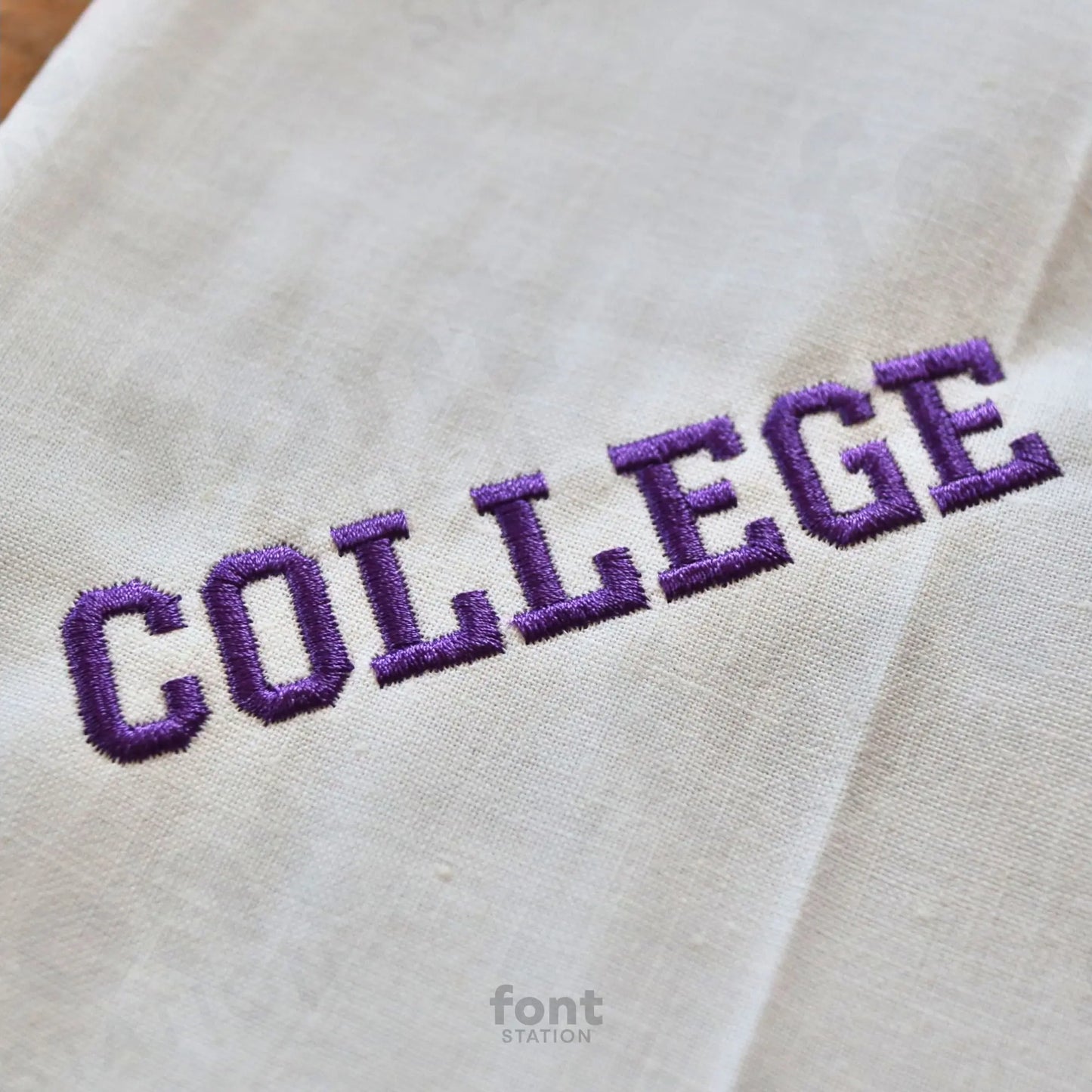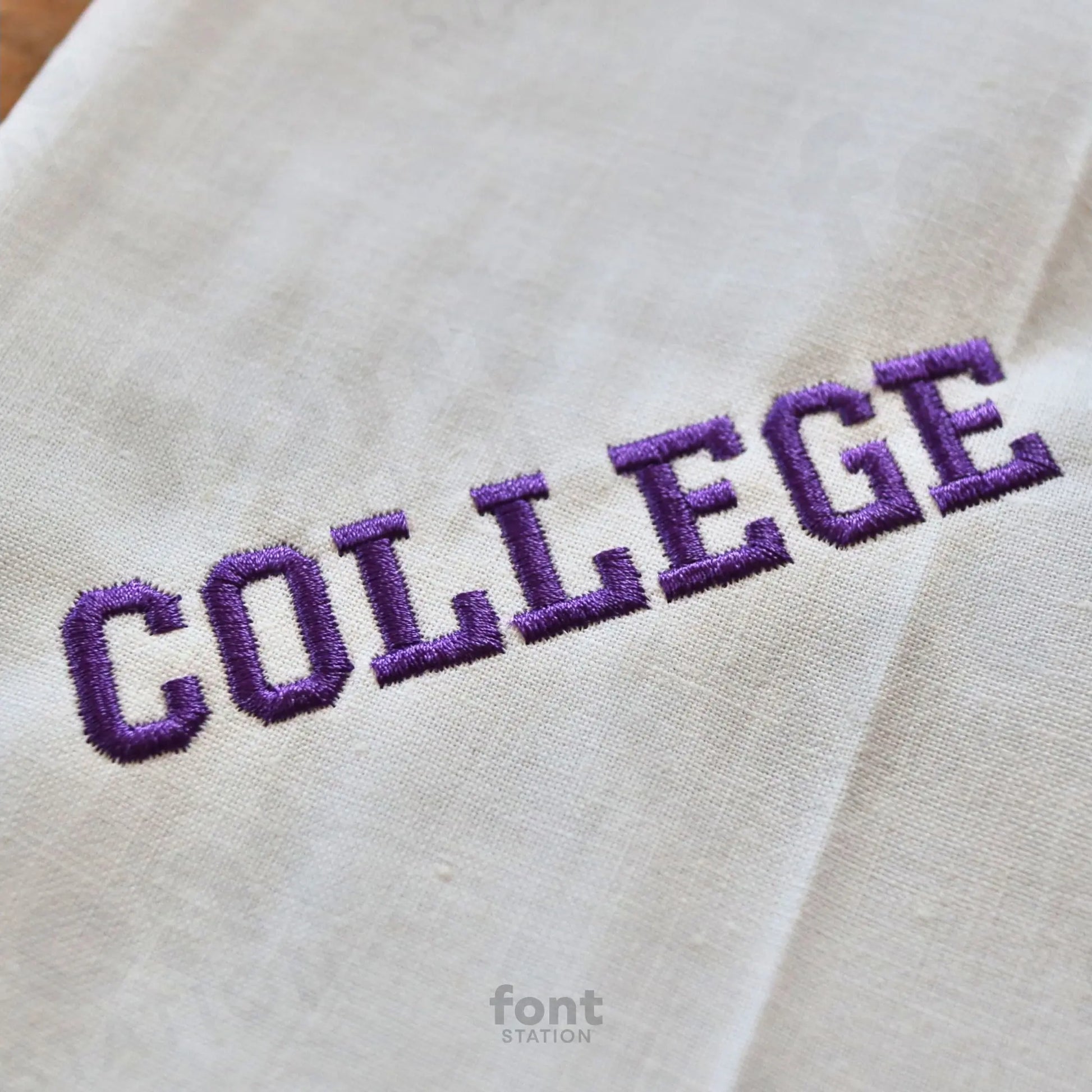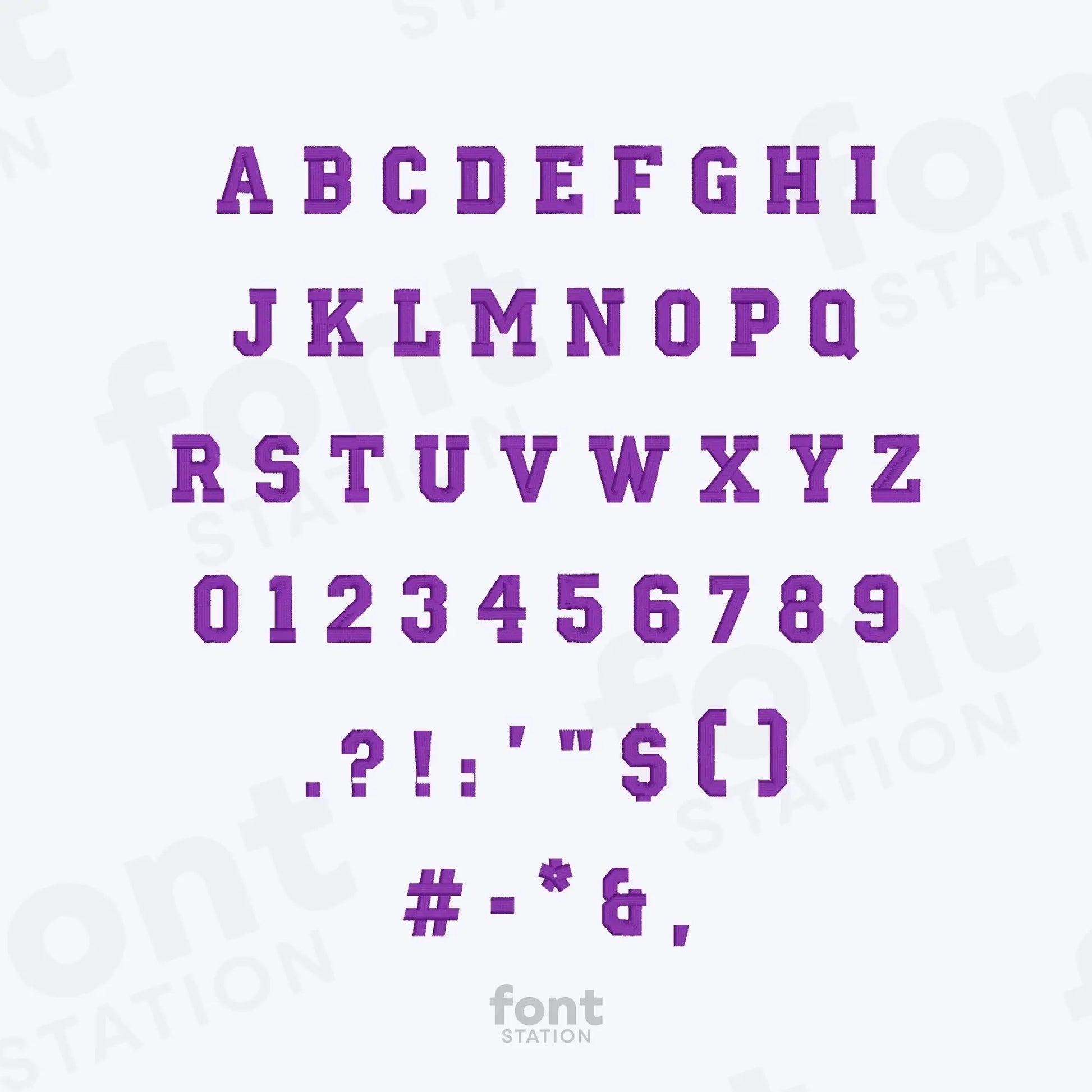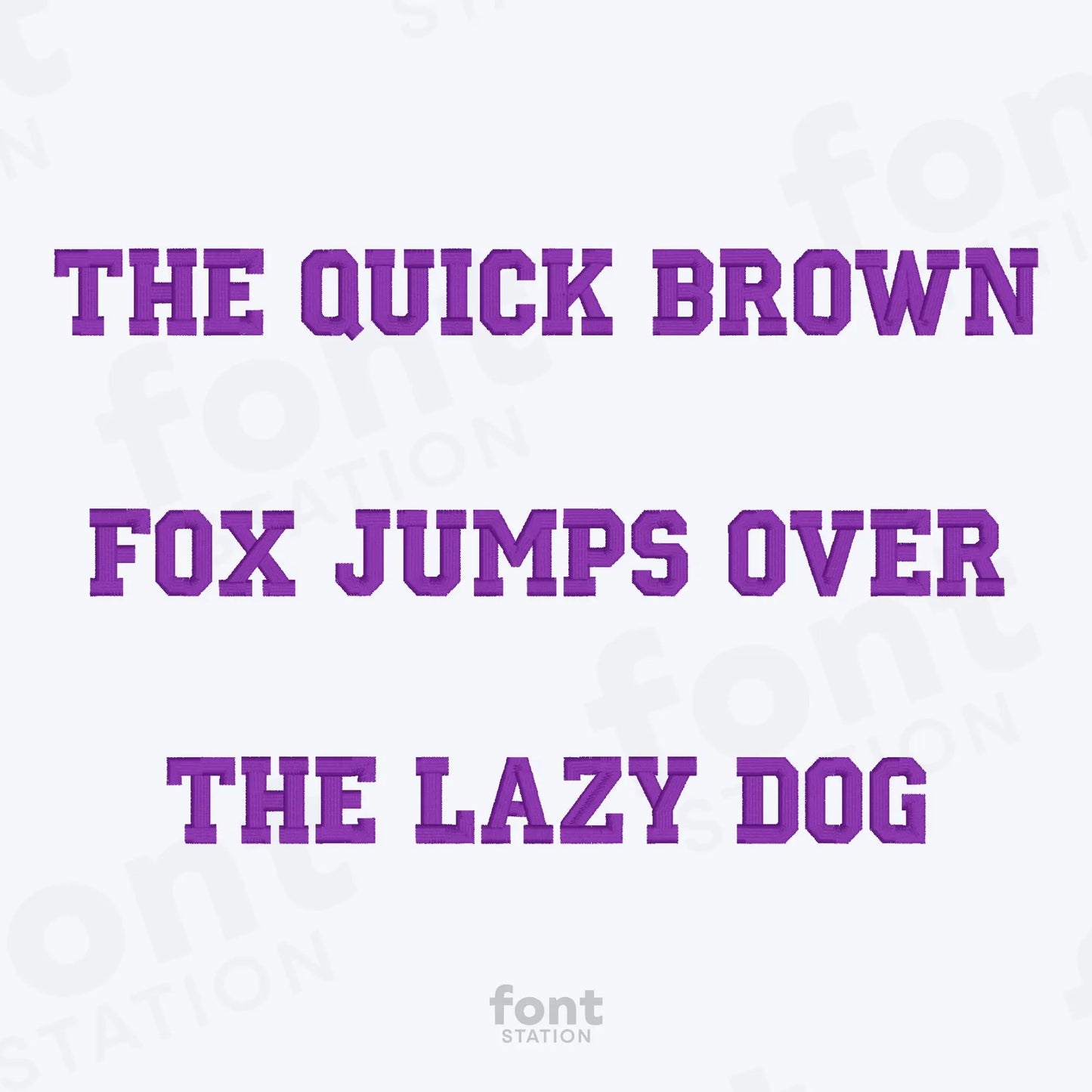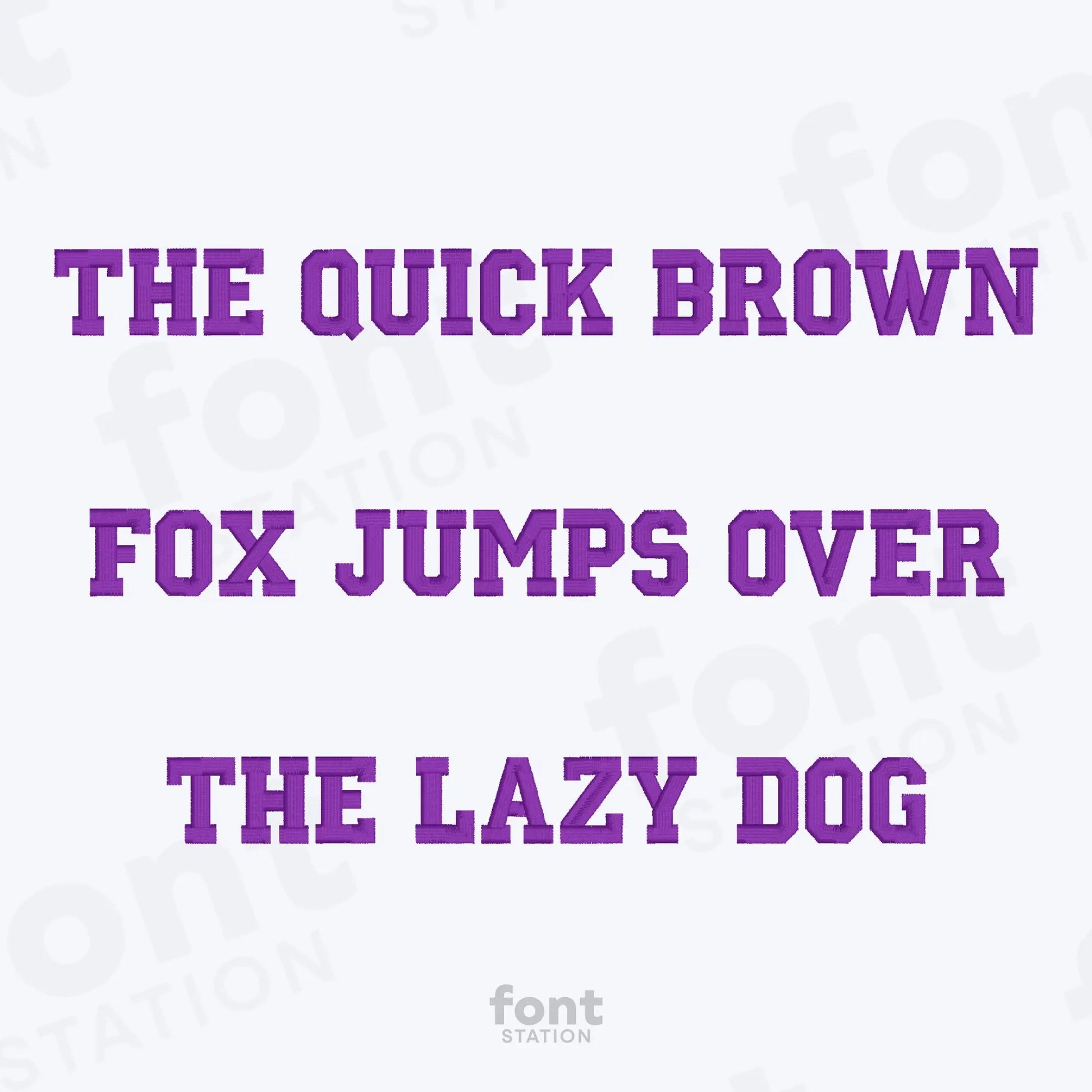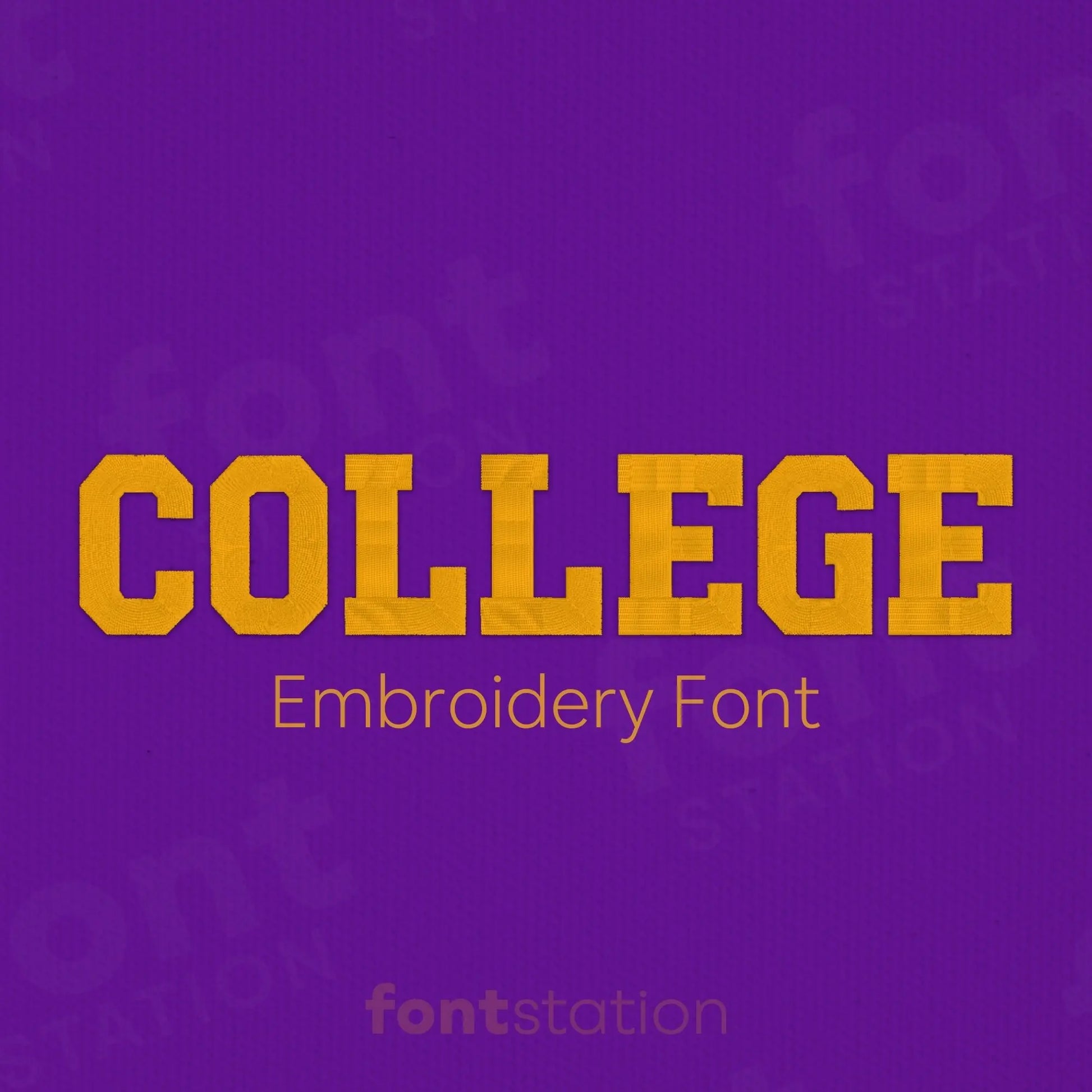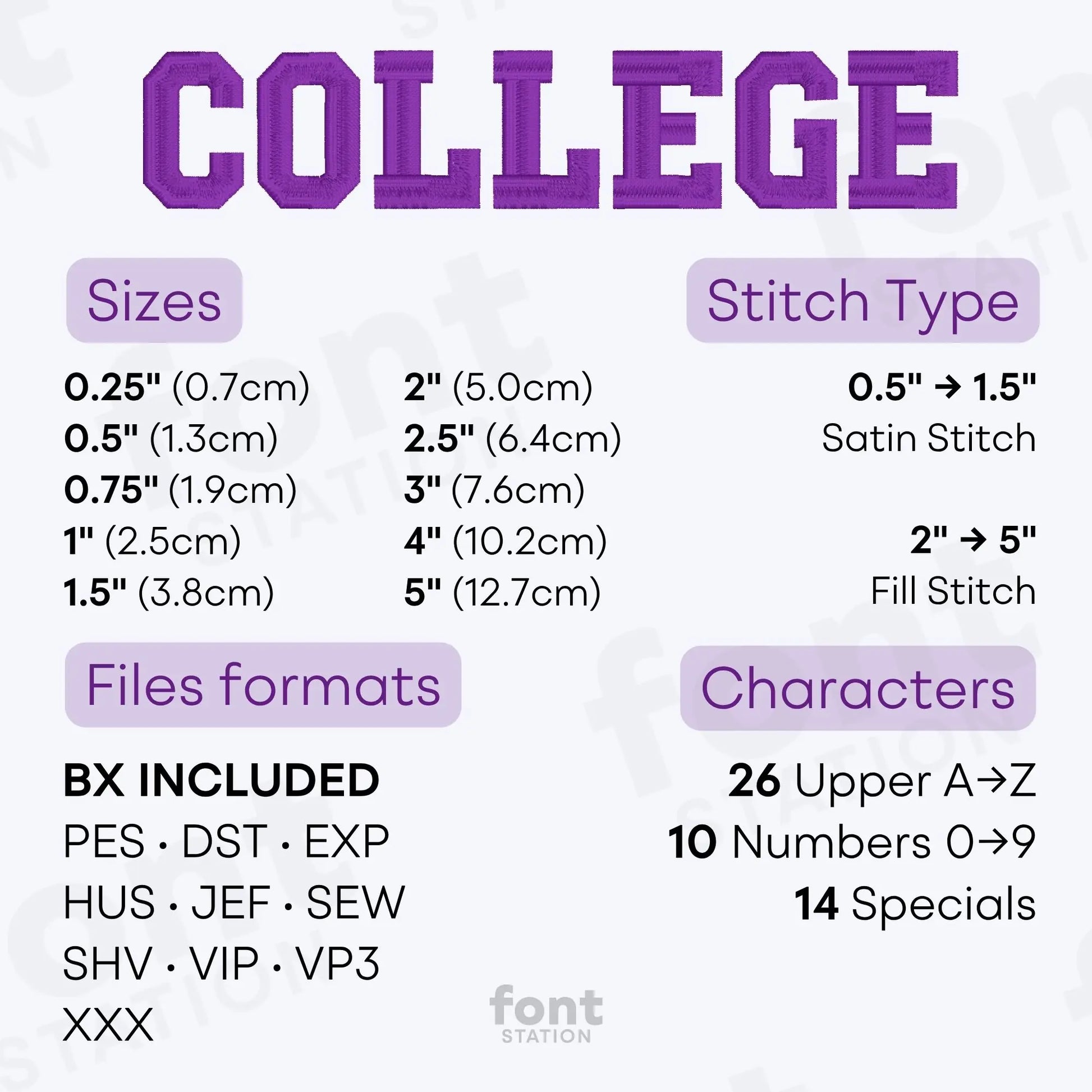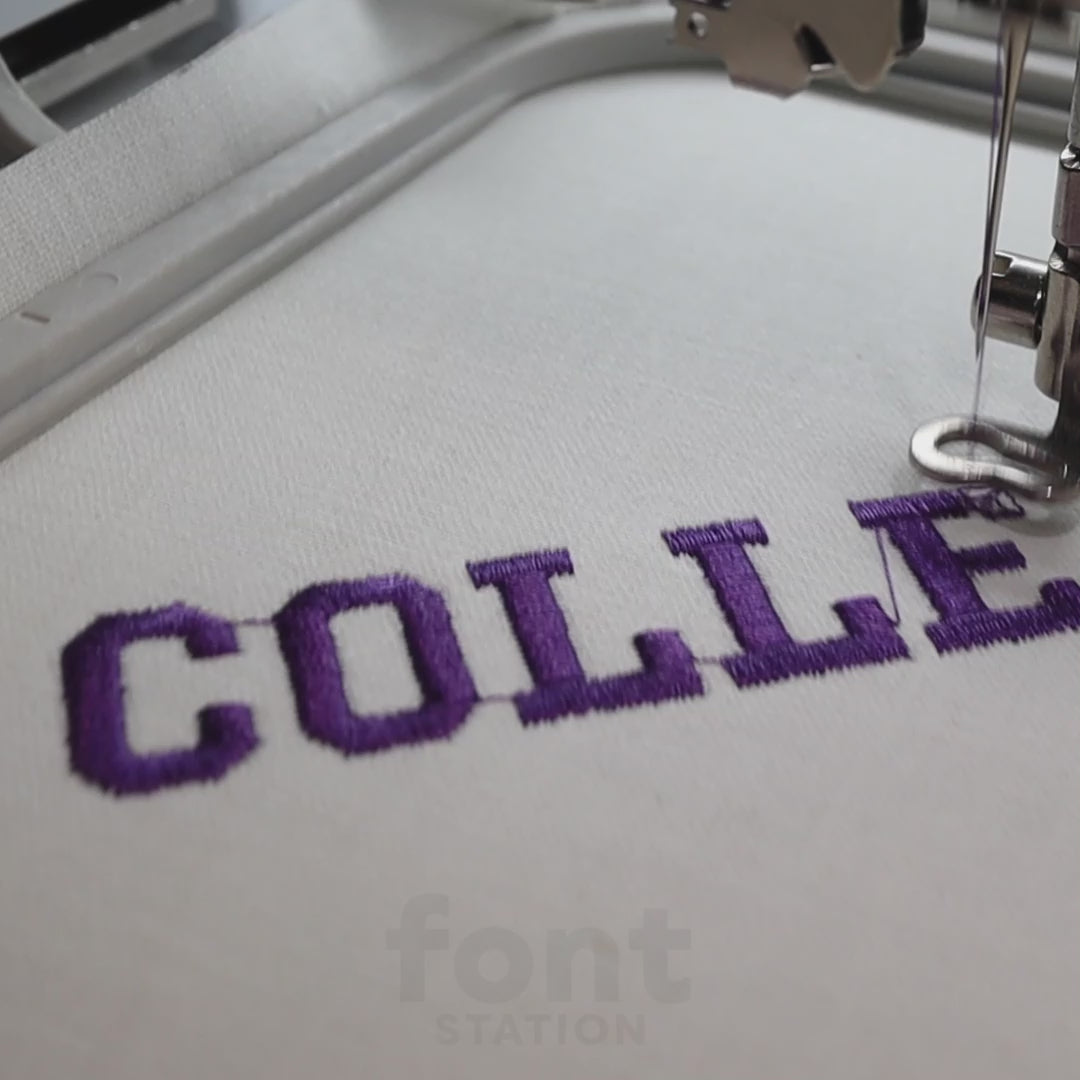
College Embroidery Font
Our College embroidery font is a block, varsity-style alphabet that’s perfect for adding a classic University look to your projects. These machine-ready letters are great for school spirit wear, gifts, and more!
Bring that classic University look to your designs with our College embroidery font!
Give your embroidery projects a bold, academic flair with our College embroidery font. This college-style block alphabet is professionally digitized for clean, high-quality stitching on most fabrics. Perfect for varsity jackets, team gear, and school-themed designs, it’s a customer favorite, and we can’t wait to see what you create with it!
One of the best fonts I’ve used in a long while! I used it on a college wreath sash, and it stitched out perfectly! Highly recommend!
I used this font for an order for a senior graduation gift. The guy’s name was Guy. I think it turned out great and stitched out so well.
I love the font. It was great on the shirts that I embroidered.
the font sewed out beautifully
This don’t stitches out beautifully with no issues.
The fill letters did not have great coverage. Loved the style but not the fill area
Exactly what I was looking for. Stitched out beautifully.
Nice sew out, very satisfied.
Stitched out great - even at very small size.
Great stitch out and loved how it came out
Turned out really nice when I used it for projects.
It stitched out beautifully. I look forward to using it for future projects.
Great stitch out! Exactly what I needed!
This font stitched out nicely
Nice script sewed perfect will use in my shop.